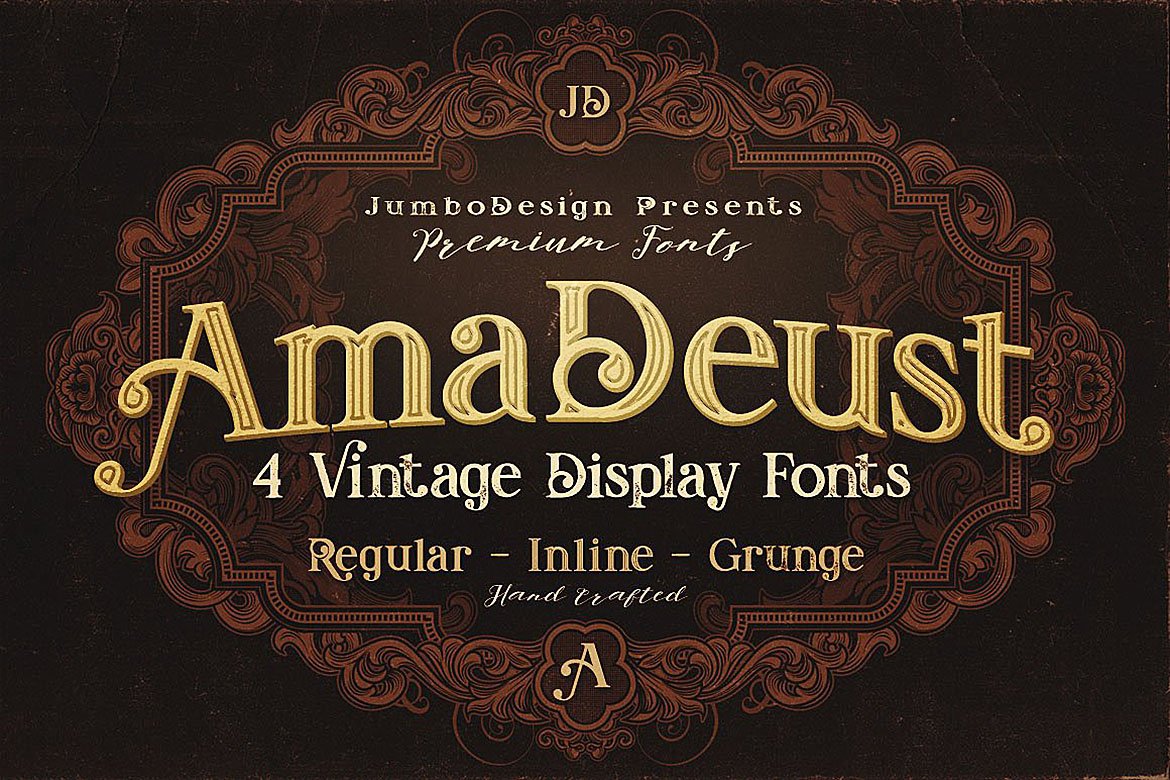
Unleashing the Elegance of AmaDeust Font
As a designer, there’s nothing quite like the thrill of finding the perfect font to bring your creative vision to life. You’ve spent hours scouring through font libraries, only to stumble upon that one font that makes everything click. For many of us, that moment is a defining experience that sets our creative juices flowing.
Enter AmaDeust Font, a luxurious and ornamental custom serif font that’s tailor-made for special events and creative projects. With four distinct styles – regular, grunge, inline, and inline grunge – this font is a designer’s dream come true. Whether you’re crafting wedding invitations, designing luxury packaging, or creating a bespoke brand identity, AmaDeust Font is the perfect addition to your design arsenal.
AmaDeust Font Key Features
- Font Family: AmaDeust is a unique, hand-drawn font family with 4 styles (Regular, Italic, Bold, and Bold Italic) designed for creative and artistic purposes.
- Character Count: The font contains a wide range of characters, including Latin, Cyrillic, and Greek alphabets, as well as various punctuation marks and symbols.
- Unique Characteristics: The font’s hand-drawn style, subtle imperfections, and varying line widths give it a distinctive, artistic feel that sets it apart from other font families.
AmaDeust Font Review
I recently had the chance to work with AmaDeust Font, and I have to say it’s been an interesting experience. Here are my thoughts.
- The font’s unique blend of modern and vintage elements really makes it stand out. It’s perfect for projects that need a touch of elegance and sophistication.
- The font includes a wide range of weights, from light to bold, making it suitable for a variety of text-based applications.
- The font’s complexity can sometimes make it difficult to read, especially at smaller sizes. This may not be ideal for projects that require clear, concise text.
Overall, I think AmaDeust Font is a solid choice for designers who want to add a touch of sophistication to their projects. While it may not be the best fit for every project, it’s certainly worth considering for those that require a unique, high-end look.
- Use AmaDeust Font in combination with other fonts to create a unique and eye-catching design.
- Play with the font’s texture and opacity settings to add depth and dimension to your design.
AmaDeust Font is ideal for:
- Editorial and design projects